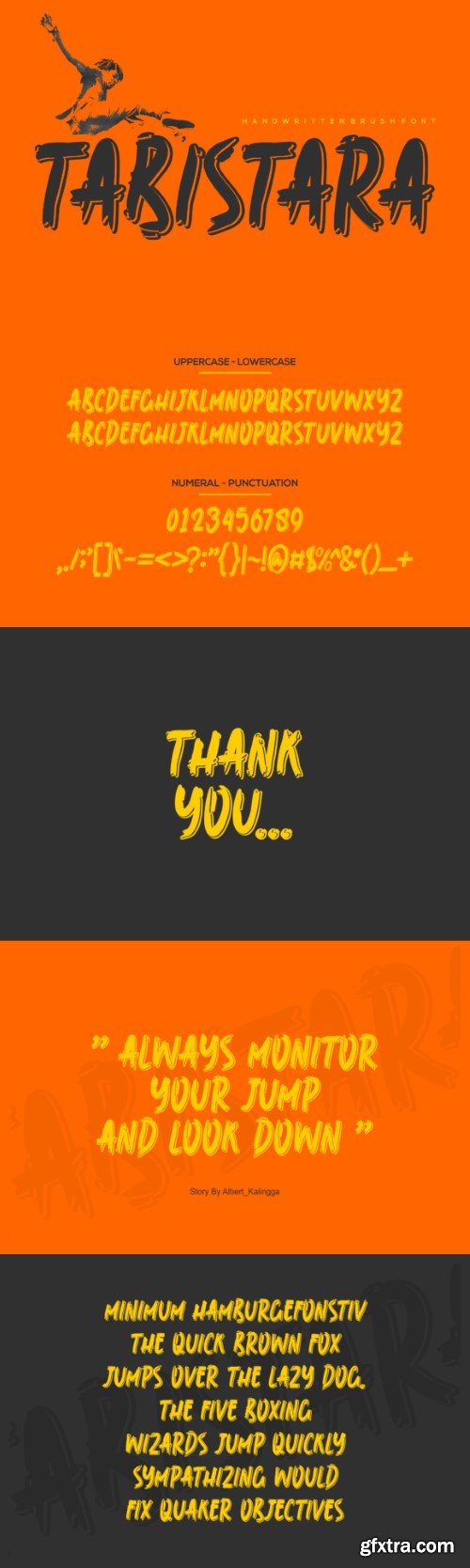
塔比特拉字体
Tabistara is a cool and unique display font that exudes contemporary sophistication. Its distinctive letterforms seamlessly blend sharp angles and flowing curves, creating a visually dynamic and modern aesthetic. Ideal for projects requiring a standout and trendy vibe, Tabistara adds a touch of bold elegance to your designs.